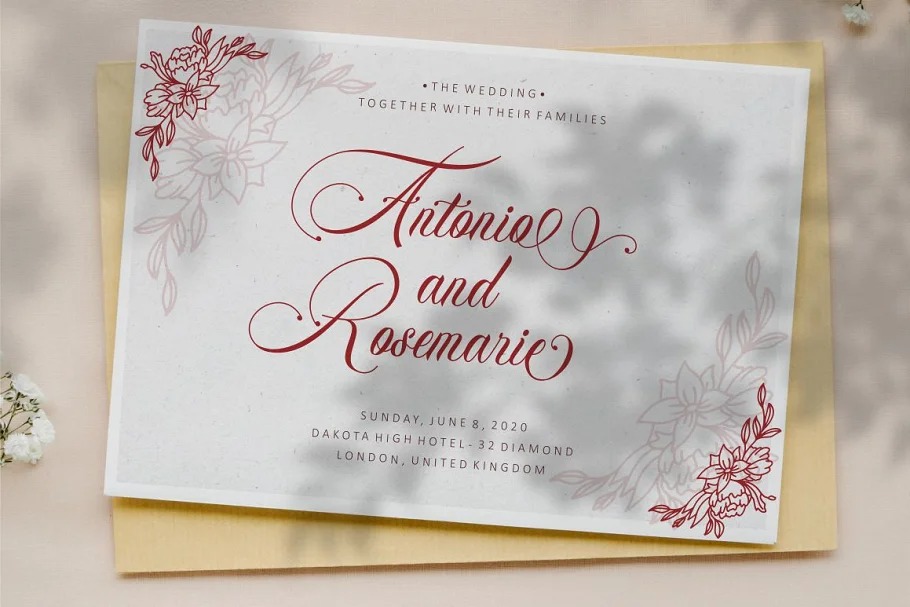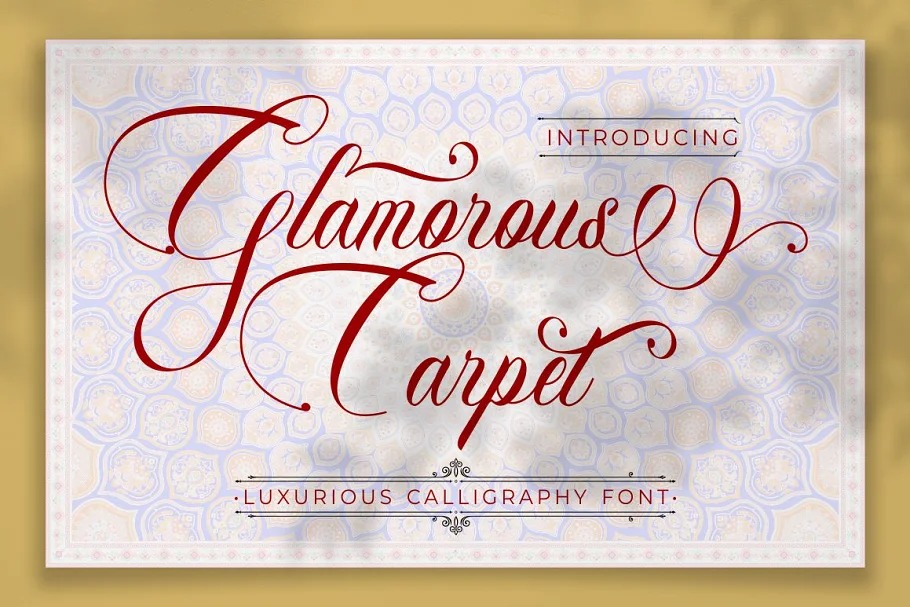
Glamorous Carpet Font
Glamorous Carpet Font is a subtle and lovely typeface package by PutraCetol Studio. This font has a lovely touch of character, perfect for a variety of designs. Glamorous Carpet is calligraphy font with a classic style and a luxury touch of elegance, and this font font inspired by delicate inky hand lettering, gorgeous wedding calligraphy and trending minimal branding designs
Glamorous Carpet designed to work together in harmony that makes it very suitable for wedding media, book covers, greeting cards, logos, branding, business cards and certificates, even for any design work that requires a classic, formal or luxurious.